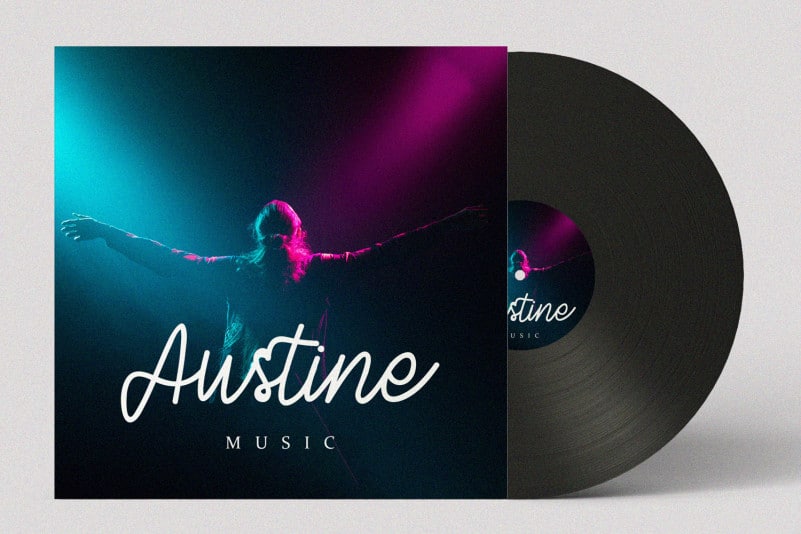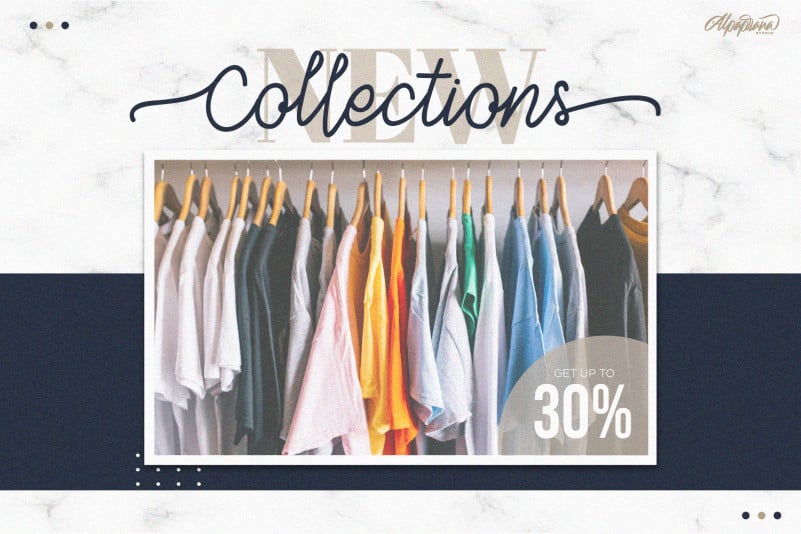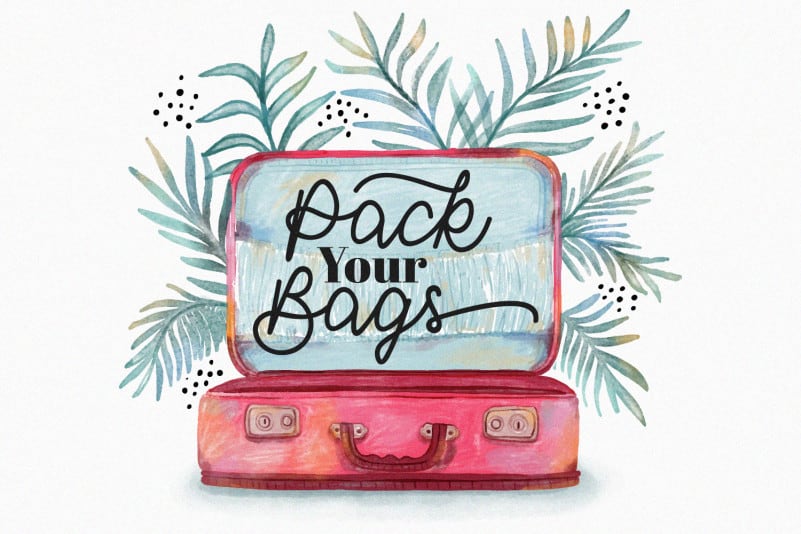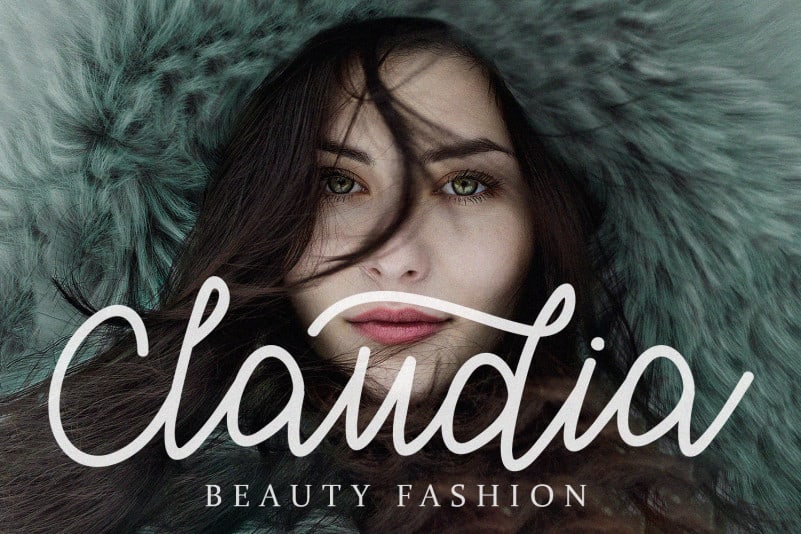
Barley – Monoline Calligraphy Font is a stunning handwritten style script font with authentic and casual feels. It will be perfectly used for Branding, Logo Design, Lettering, Logotype, Clothing, Poster, magazine, packaging, posters, shopping bags, t-shirts, book covers, photography, special events and other design project.